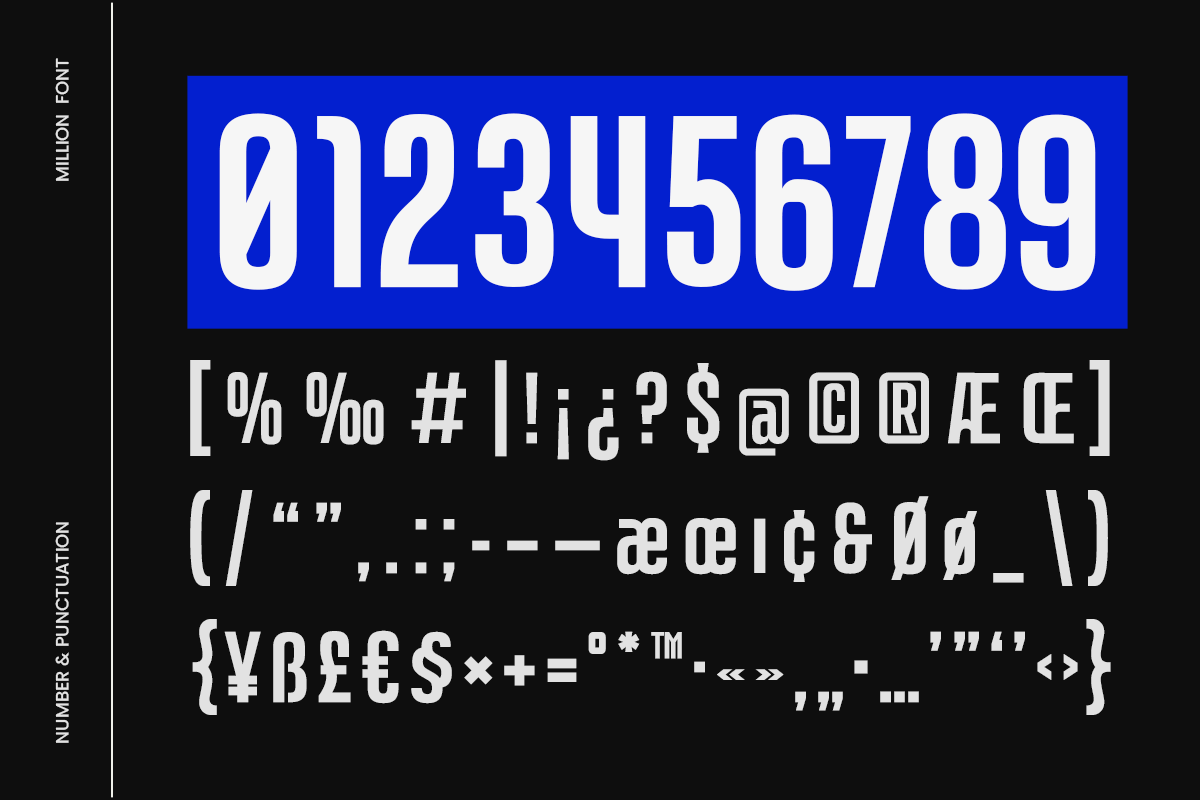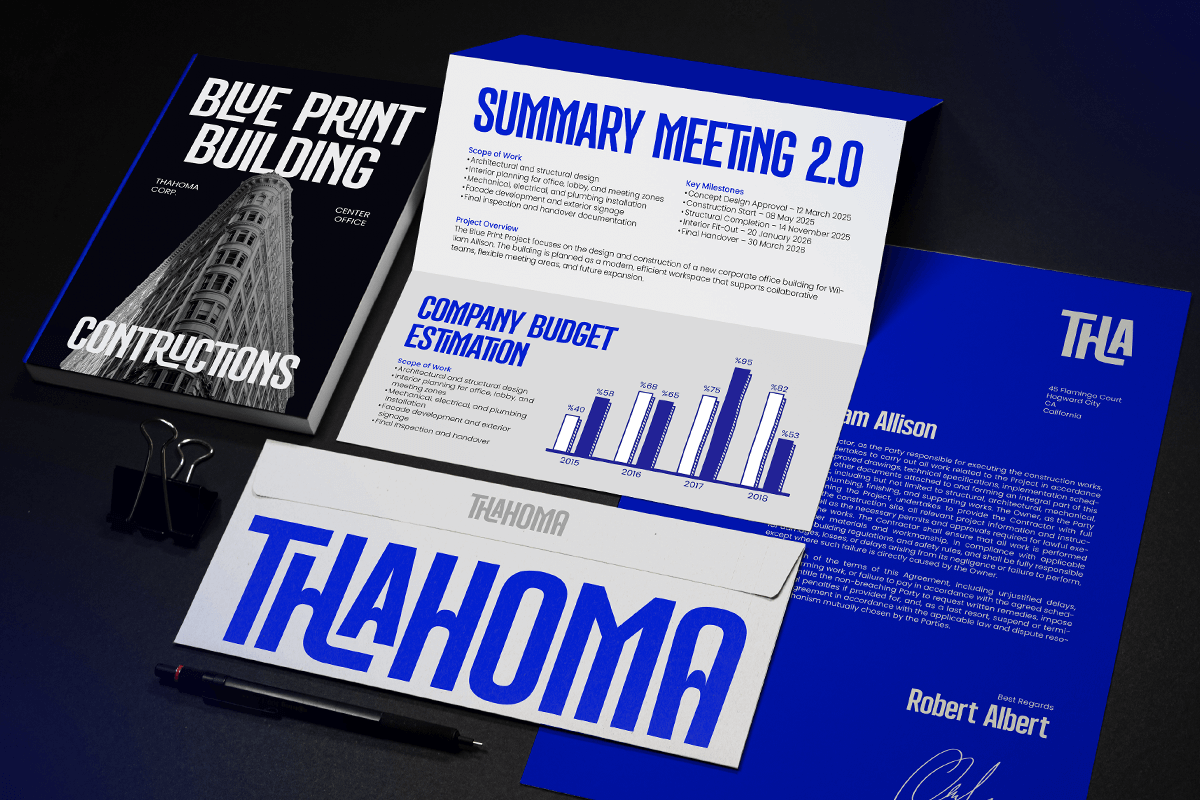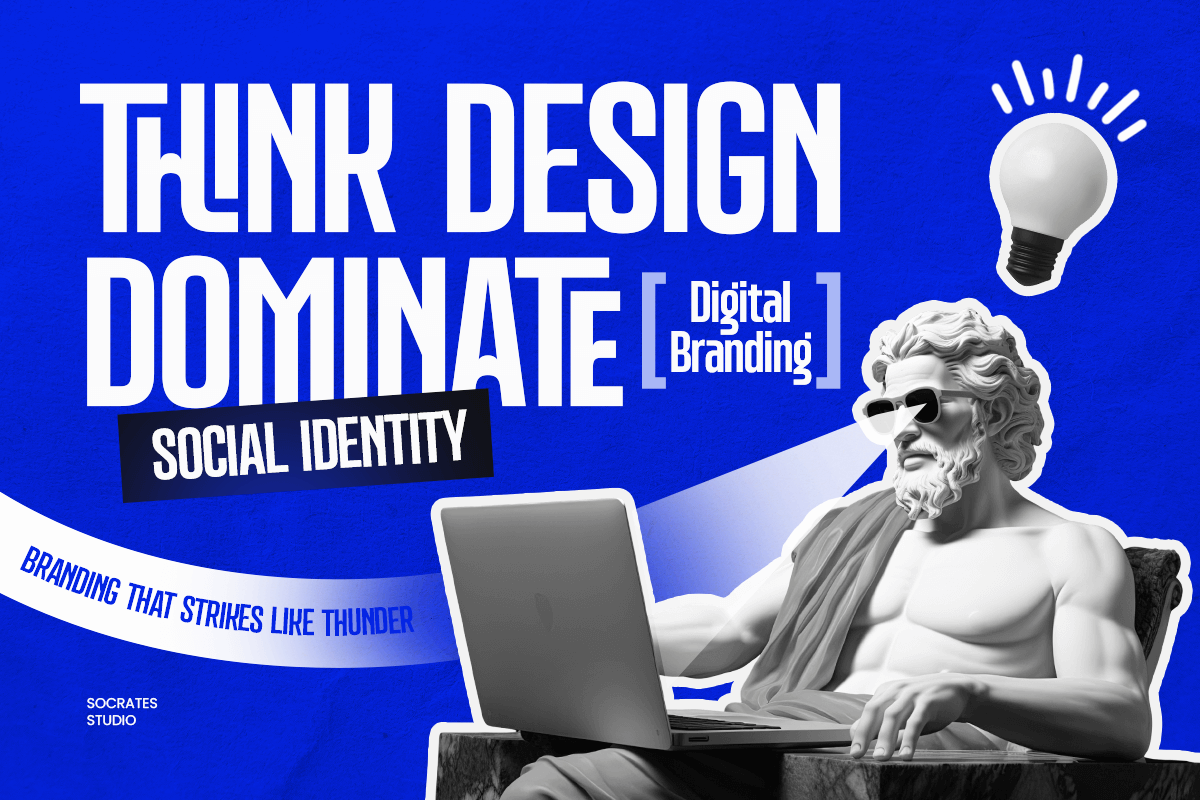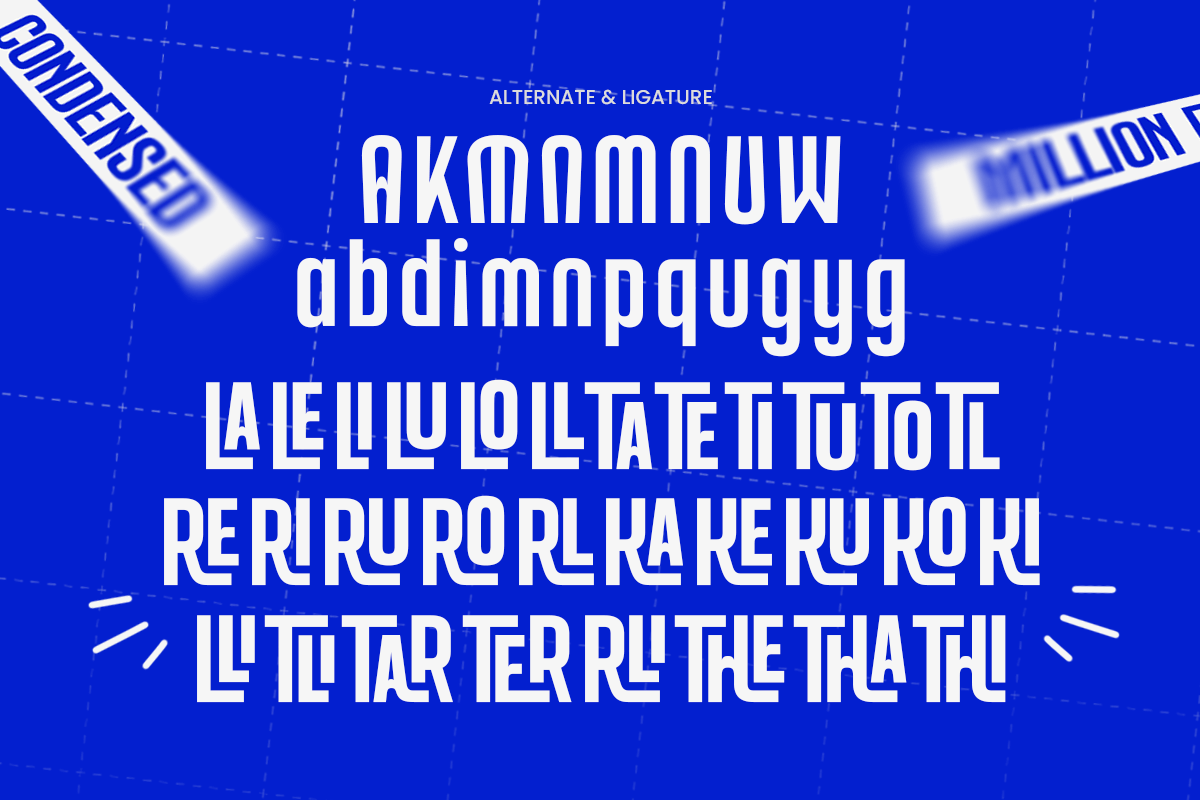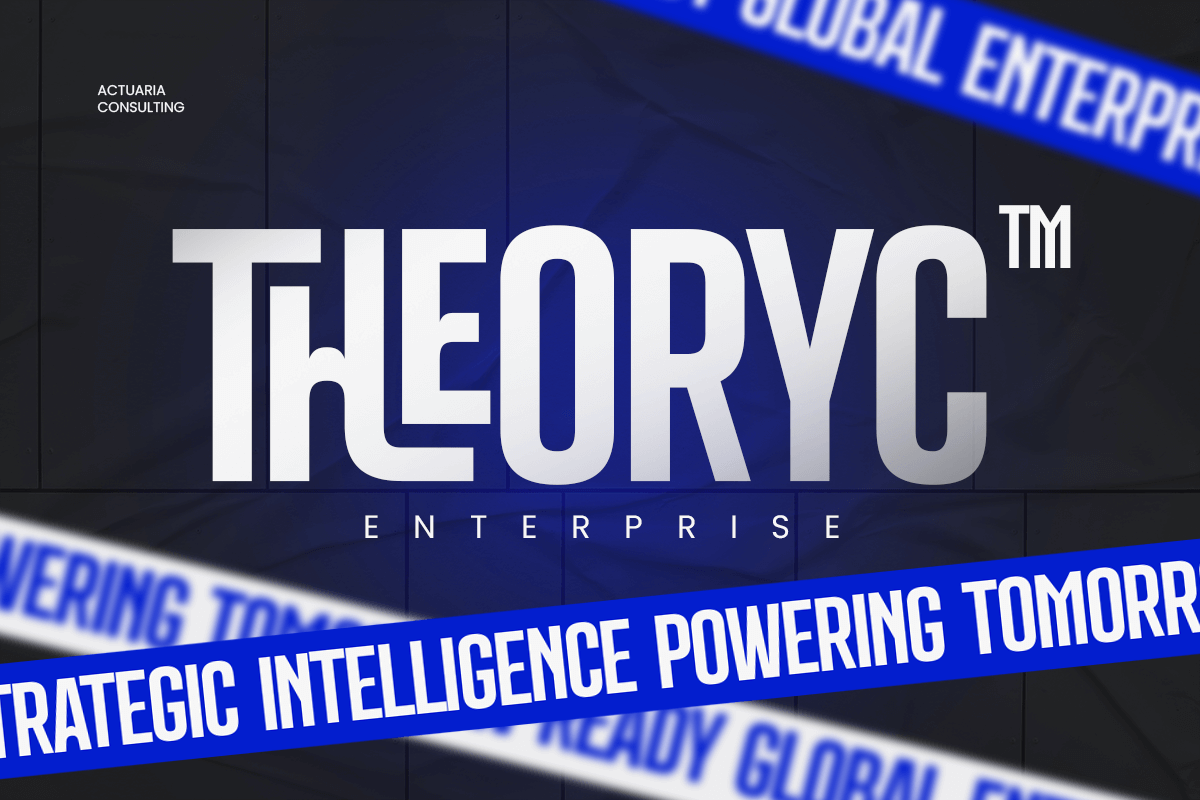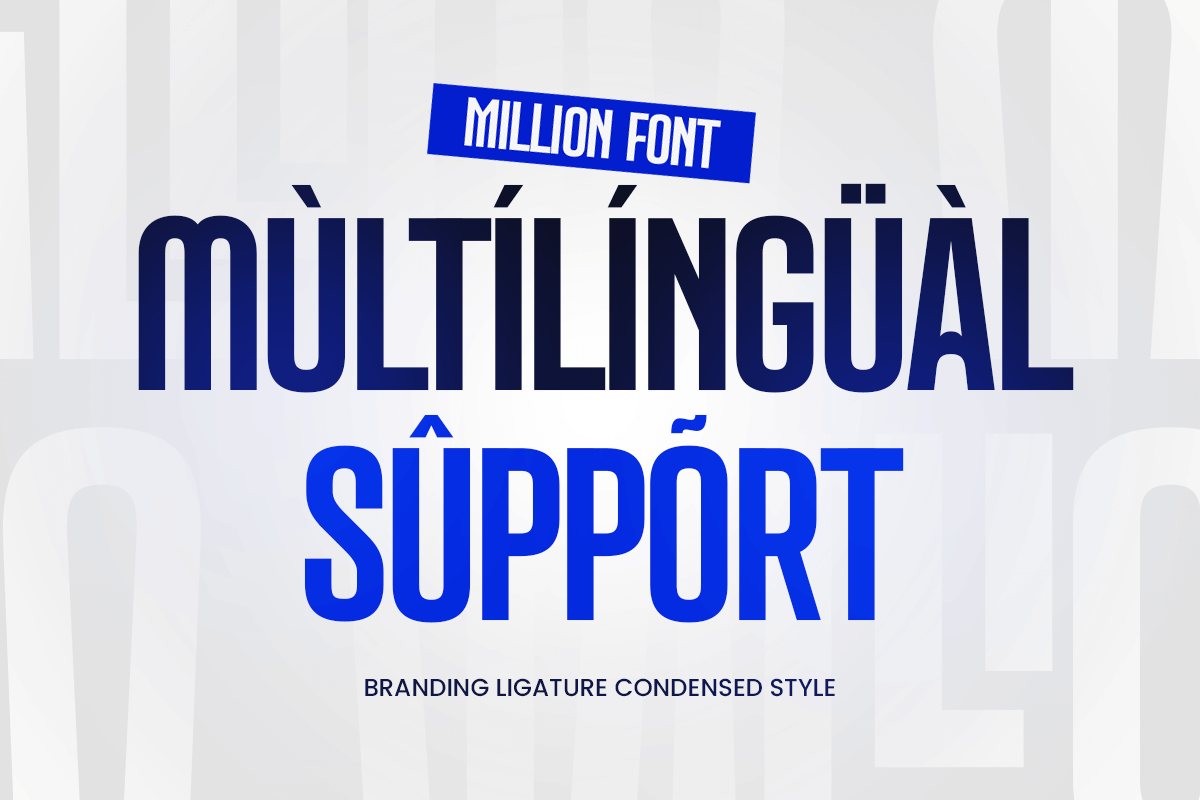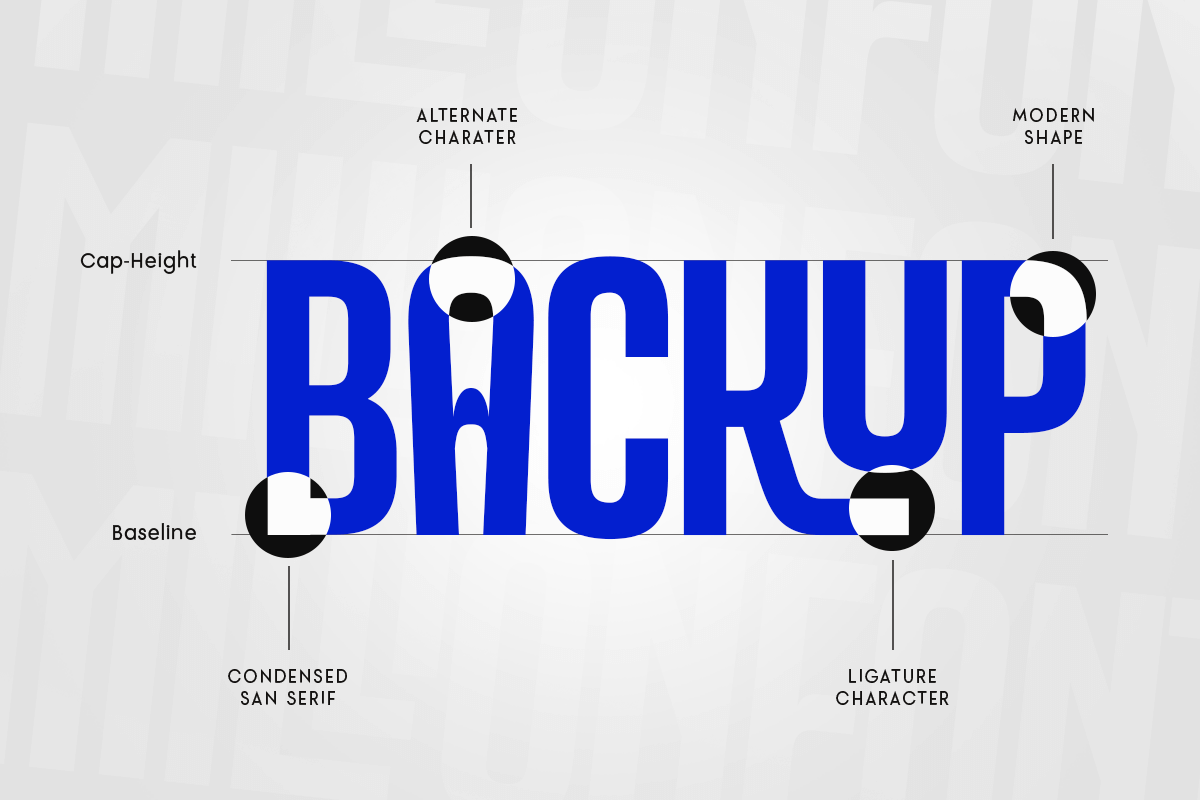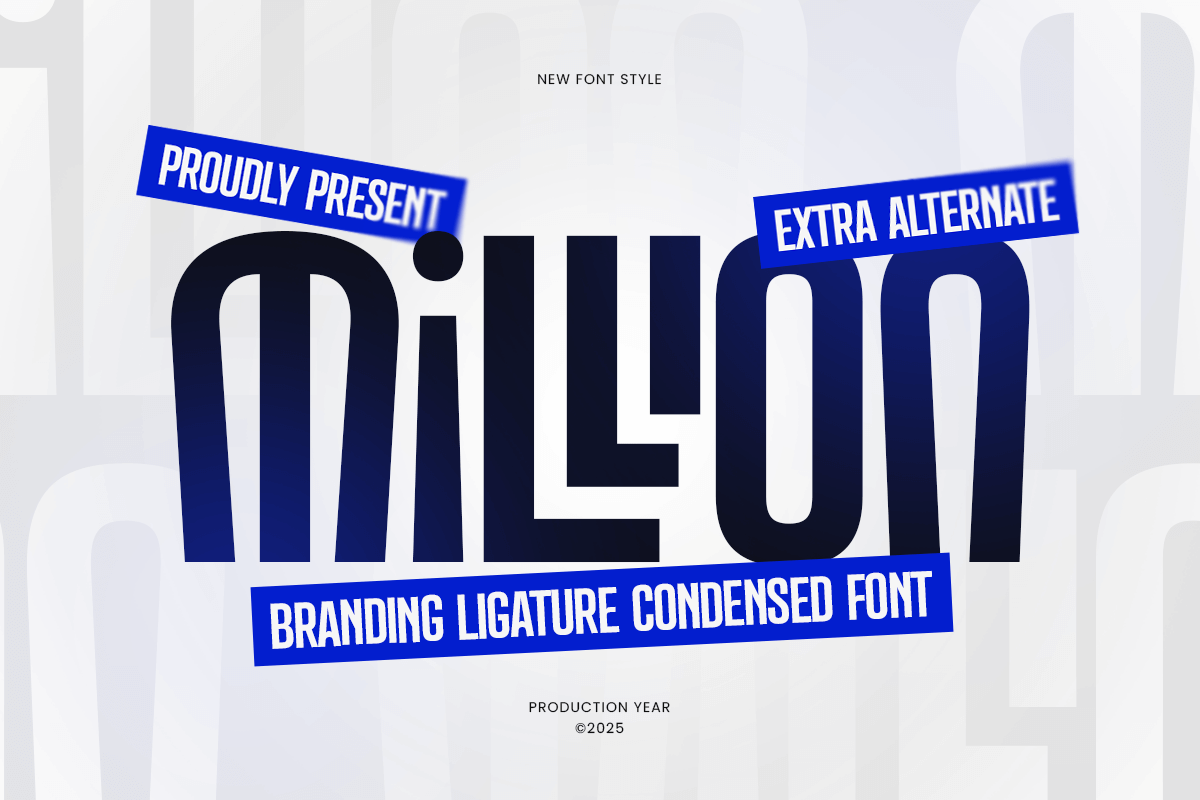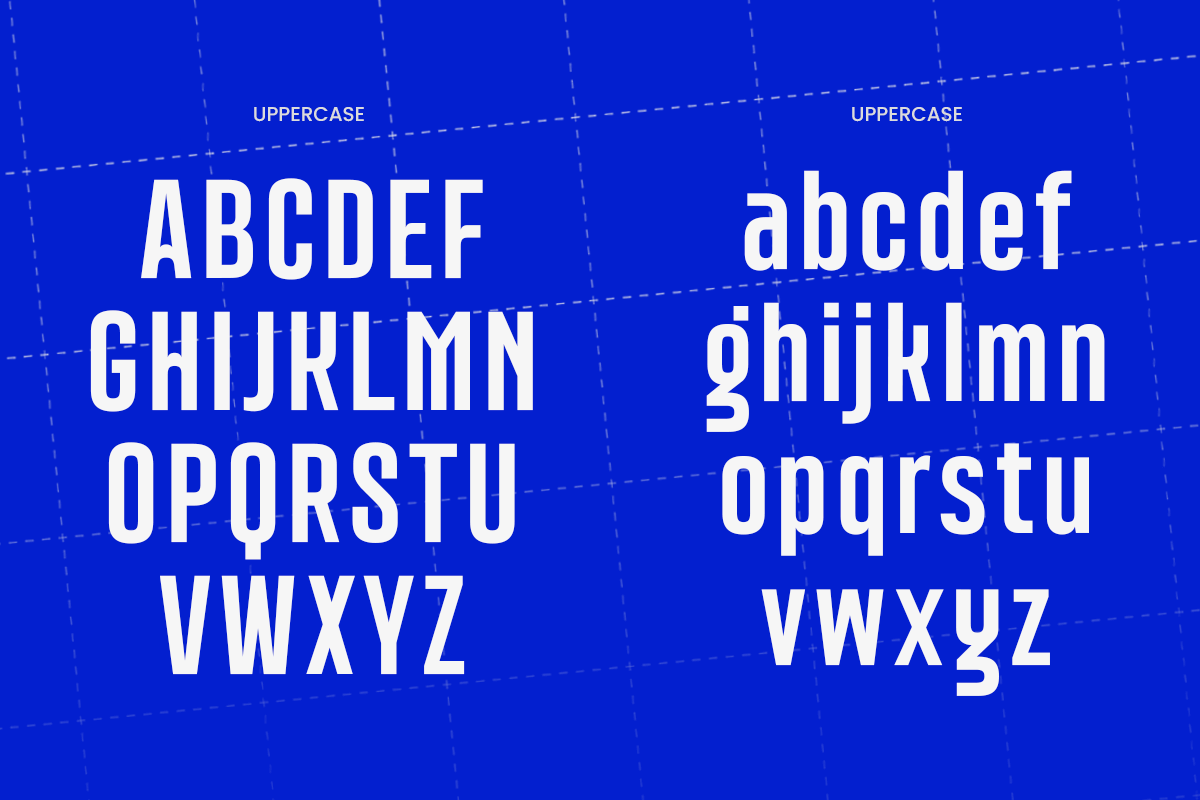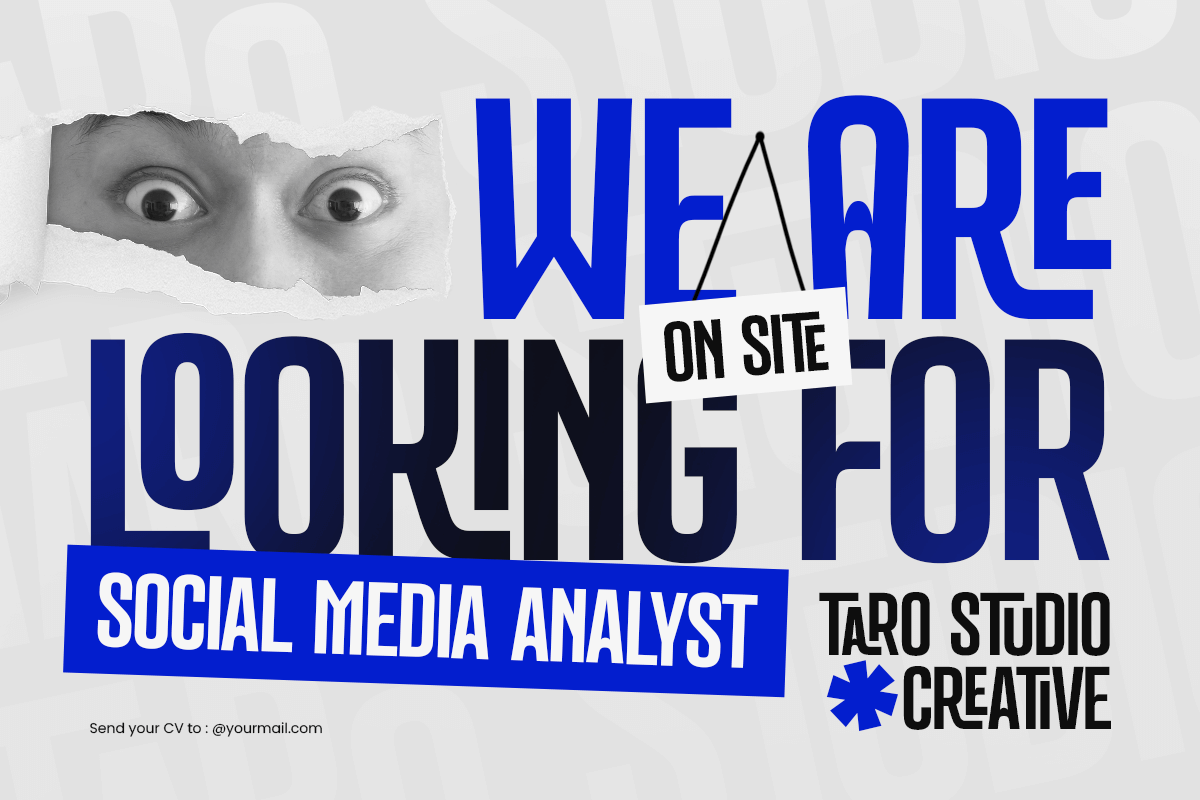
Million - Branding Condensed Font
Million – Branding Ligature Condensed Font
Million is a modern condensed font designed with stylish ligatures to deliver elegant, professional, and high-impact branding. Its narrow proportions combined with smooth ligature connections make Million perfect for logos, brand identities, headlines, packaging, editorial layouts, and modern corporate designs.
Crafted to maximize space while maintaining clarity, Million offers a clean and sophisticated look that enhances visual hierarchy and brand recognition. This font is ideal for premium brands, fashion labels, startups, agencies, and businesses seeking a sleek condensed style with distinctive ligature details.
Million – Branding Ligature Condensed Font Features:
* Condensed letterforms with elegant custom ligatures
* Ideal for branding, logos, headlines, and editorial design
* Uppercase, lowercase, numerals, and punctuation included
* Professional spacing with modern visual balance
* Perfect for clean, premium, and contemporary branding
Elevate your brand presence with Million – a condensed ligature font made for modern and professional identity.